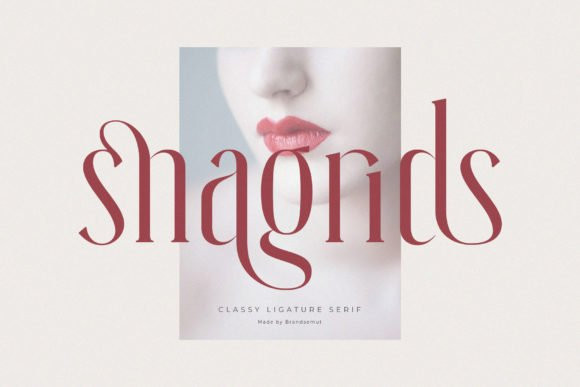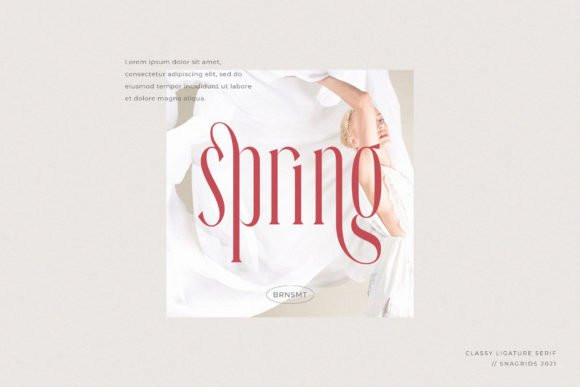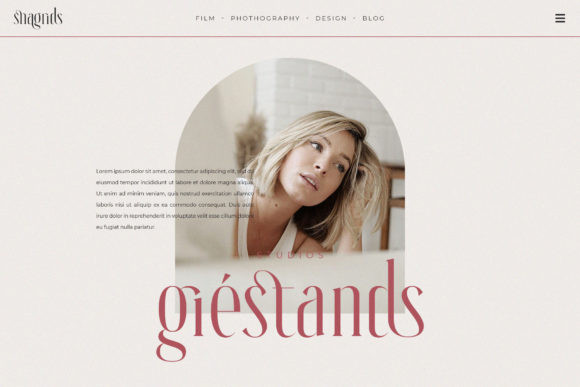
Snagrids Font
Snagrids is a trendy and elegant serif font. Fall for its ravishing style and use it to create gorgeous wedding invitations, beautiful stationary art, eye-catching social media posts, and much more!